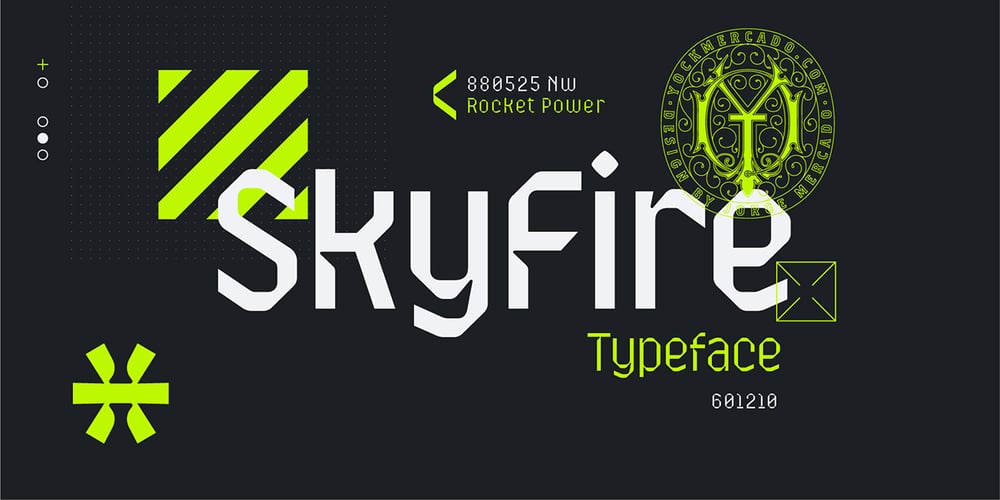
Sky Fire
Sky Fire font
Sky Fire Font Family was designed by Jorge Mercado and published by Yock Mercado. Sky Fire contains 4 styles and family package options. Skyfire is a Sans Serif font inspired by digital interfaces, spaceships, and galaxies, embodying cosmic adventure and progress. Its sleek design is perfect for branding and tech projects, promising a future full of possibilities. Ideal for space-related work, it immerses viewers in a universe of wonders.With Skyfire, each stroke is a cosmic journey, merging imagination with design. A guiding light for bold projects, it leads to new horizons and innovates in typography.